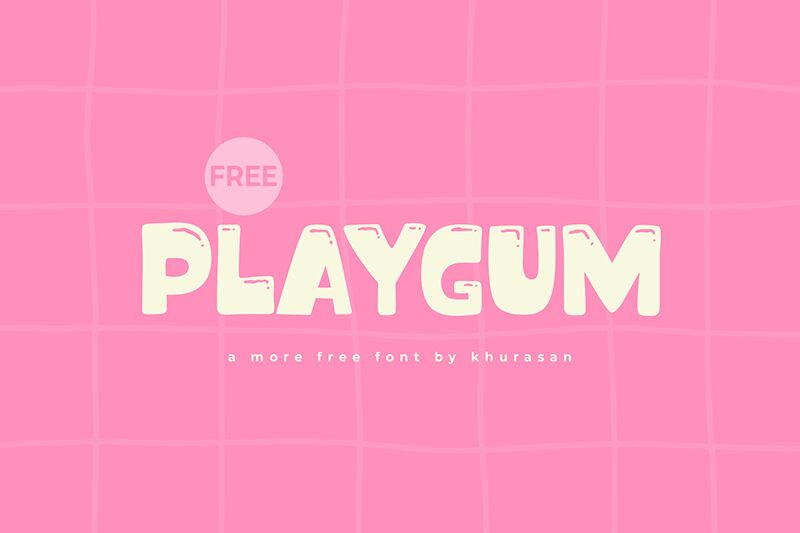
Playgum
Playgum font is a free display font by Khurasan with bold cartoon-inspired letters. The style is chunky and retro while main elements are stencil-like. This high-impact typeface offers an energetic mood and a nostalgic appeal all in one package.
Use Playgum in posters, flyers, music album covers, magazines, branding designs, and social media visuals like Instagram stories and posts. Typographic logos can also look interesting when set with this font.